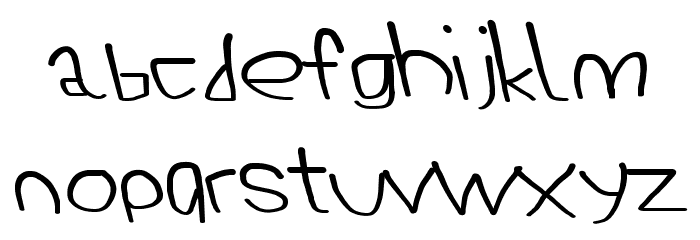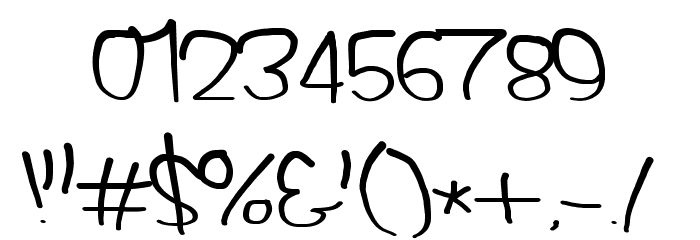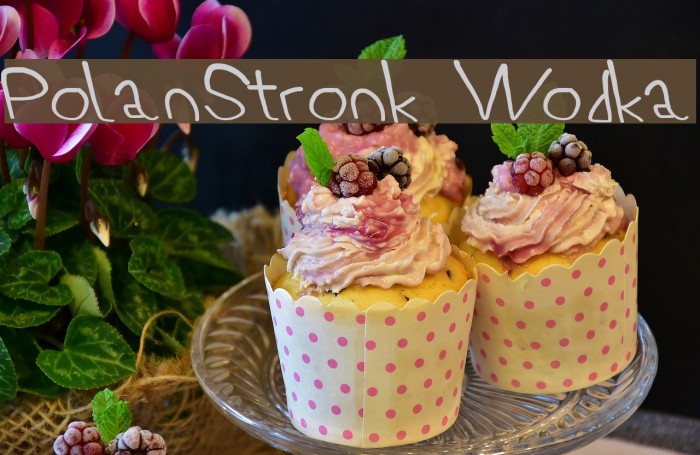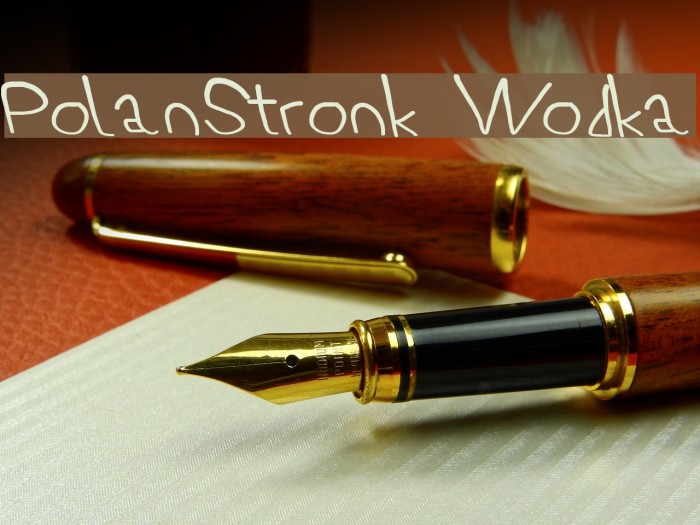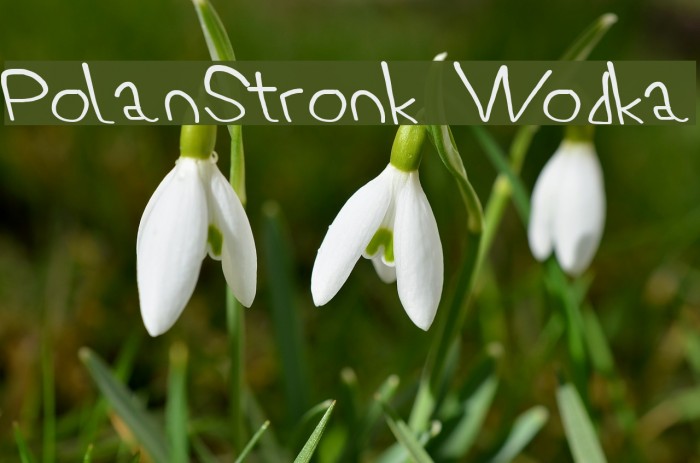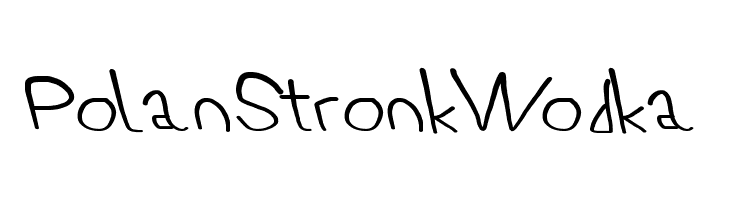
PolanStronk Wodka Font
This font features a playful and quirky handwritten style, characterized by its irregular and slightly tilted letterforms. The strokes are uneven, giving it a casual and informal appearance. The uppercase and lowercase letters maintain a consistent style, with the uppercase being slightly larger and more pronounced. The numbers and special characters follow the same playful aesthetic, making the font suitable for creative and fun projects. The overall look is reminiscent of a doodle or sketch, adding a personal touch to any design.
A playful, quirky handwritten font with irregular strokes.
- Proposed Projects: Ideal for children's books, greeting cards, informal invitations, and playful branding.
- Use Case: Headlines, Logos, Informal Text